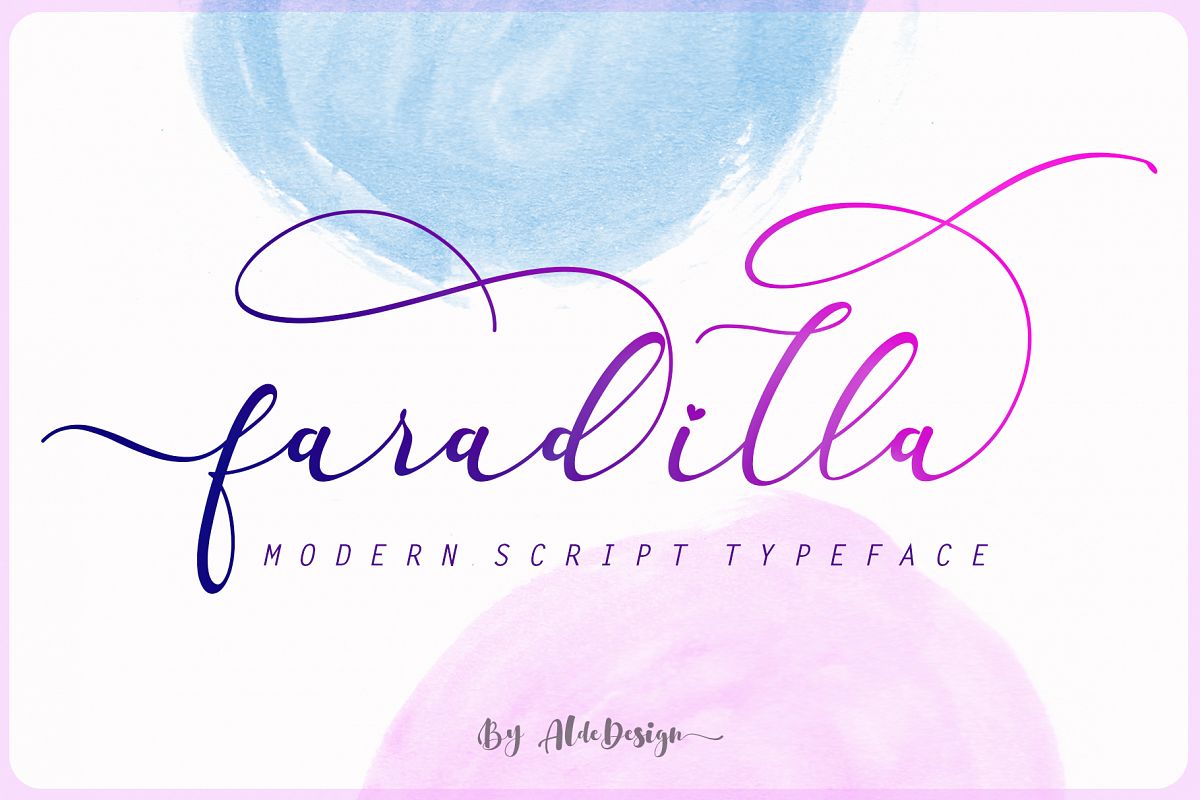
Faradilla - Beautiful Script
Faradilla - Beautiful Script Font **  is a stylish handwritten script with touch of love. This font that features a varying baseline, smooth line, modern and with a depth love.
Faradilla comes with a touch of love and modernity for your designs or branding, it can be used for various purposes such as headings, wedding, invitation, signature, logos, branding, t-shirt, letterhead, signage, lable, news, posters, badges etc.